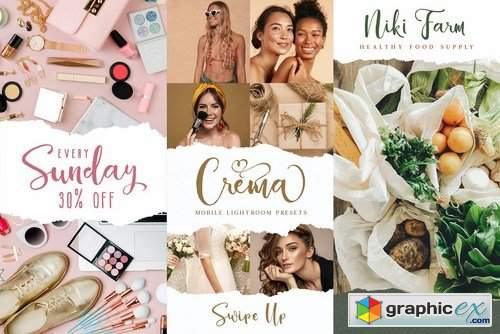
Alocasia-Trio Font Combination
Hello!!! my name is Alocasia. The name of Alocasia took from tropical family plants genus. The idea of using the name is to bring a perfect vibe of tropical, natural & beauty. Our magnum opus is a complete set package (all you need!) for your handcraft and creativity.